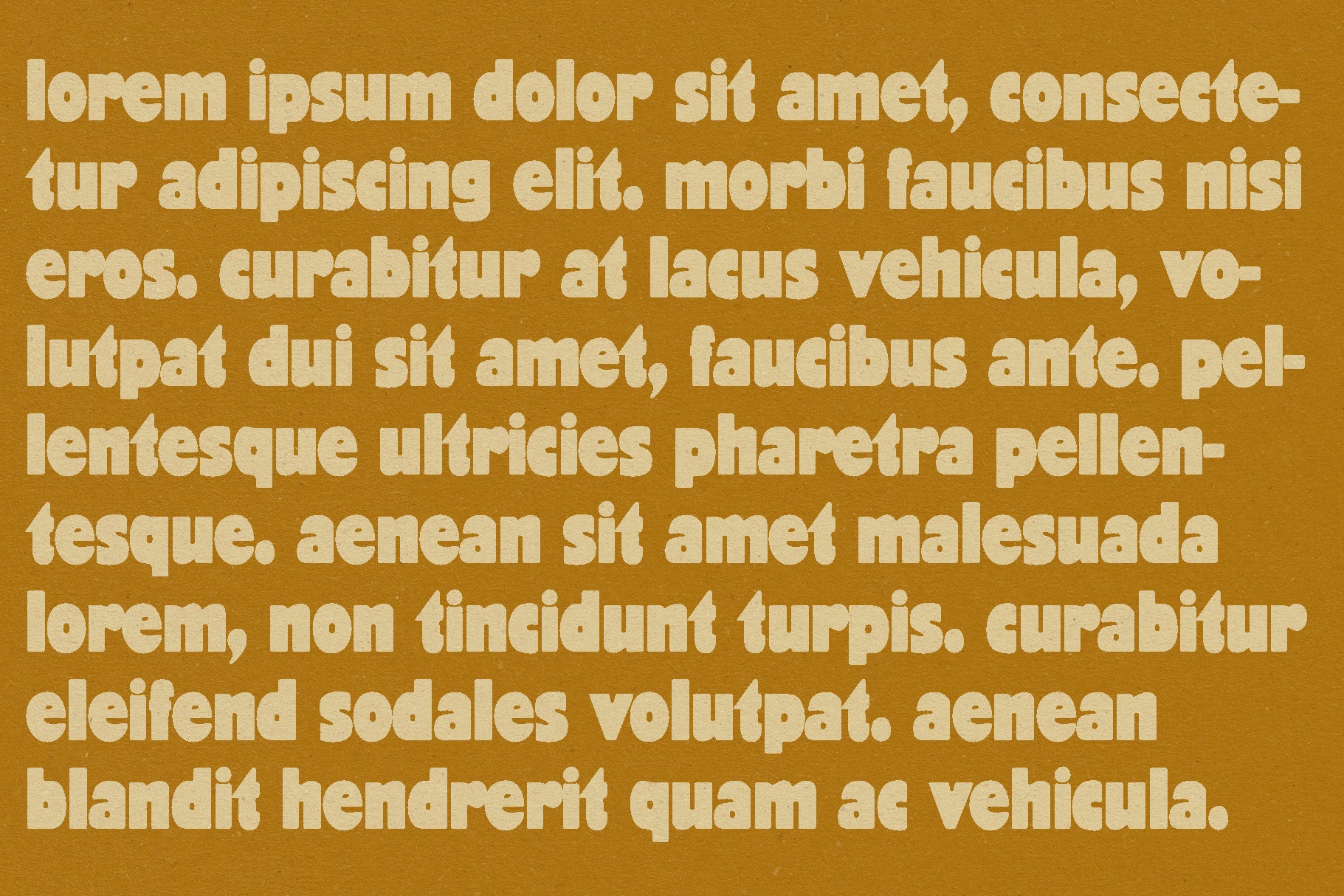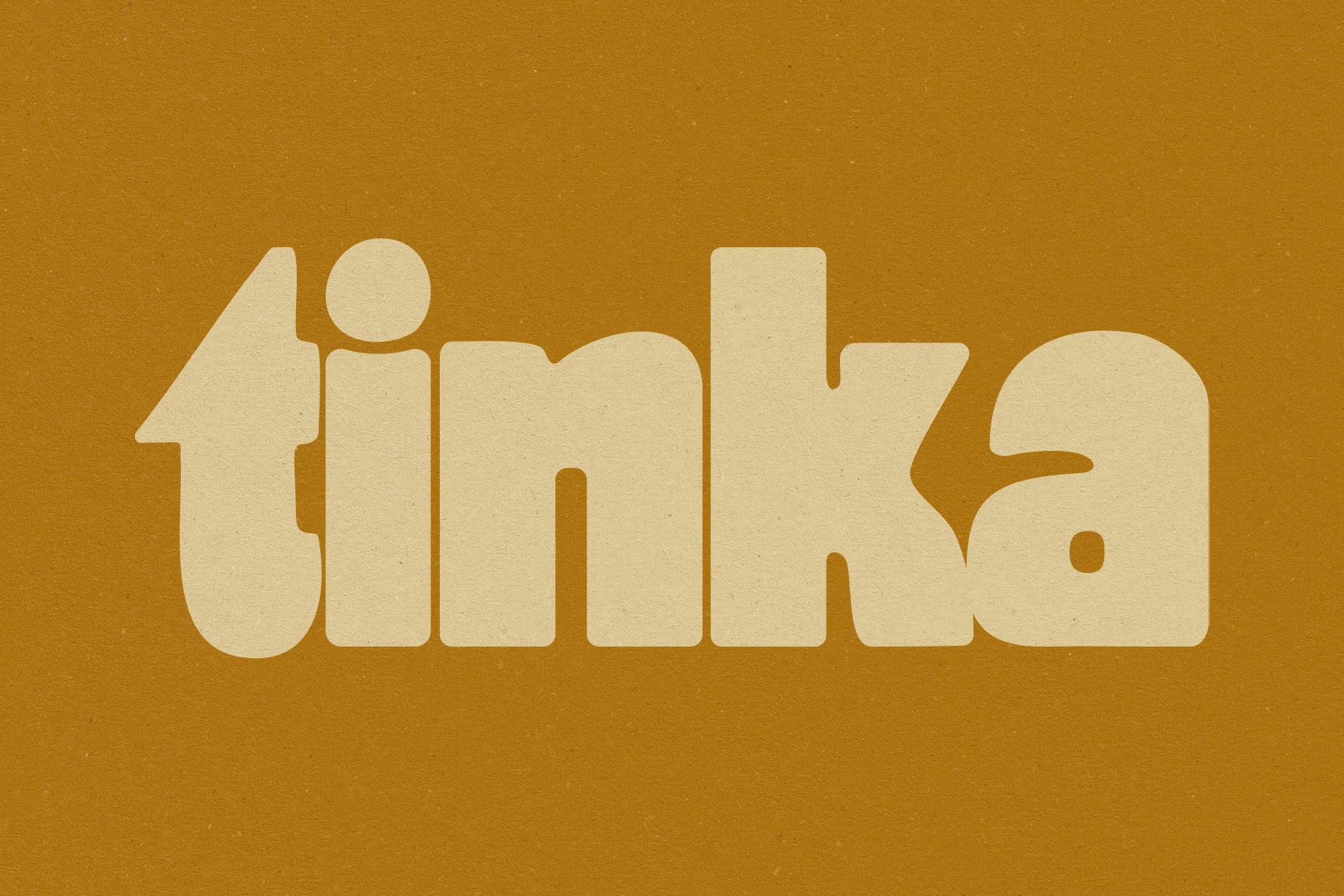
Tinka Lowercase Typeface
I wanted to create a font inspired by some of the text I saw in publications in Vietnam. I found some really cool reference images and made this lowercase-only (for the first time!) typeface which I think works really well for display while also being extremely readable.
Includes multiple language support and punctuation.